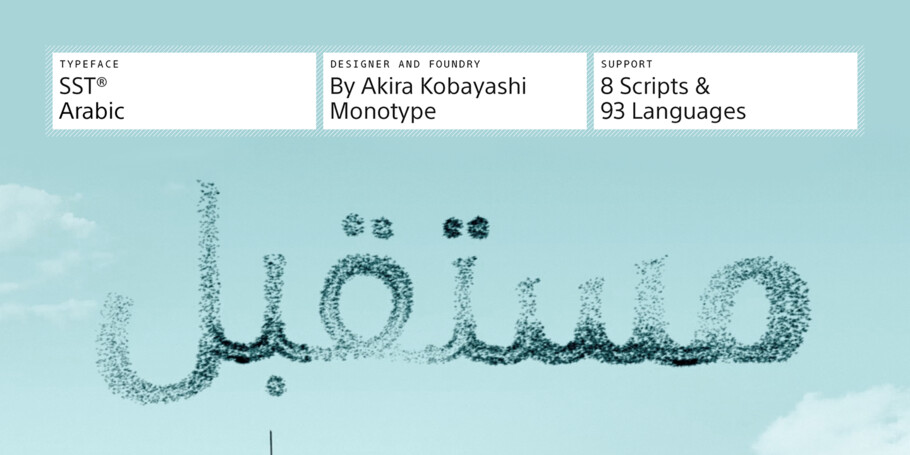
SST®
Universelle et intemporelle.
For international brands, SST brings harmony and personality to communications across cultures and touchpoints. The SST typeface was designed to be universal and timeless, with support for 93 languages and outstanding legibility at all sizes.
Monotype’s Akira Kobayashi and Sony Creative Center’s Hiroshige Fukuhara created a hybrid of two typographic styles, geometric and humanist. A sharp, solid, geometric edge is evident in uniform line widths – tempered here and there with just a few tiny optical adjustments – and balanced by softer, more organic qualities of humanist design to improve readability at all sizes.
A team of ten other type designers around the world helped to make sure the style demands and cultural nuances of specific languages were catered for, and ensure a consistent tone across the entire family of fonts. Today, any brand or designer can access SST’s blend of legibility, versatility and timelessness. ‘Carelessly embellish a typeface with trendy styling, and in two or three years it will look outdated,’ says Akira. ‘We avoided this when designing the SST fonts, which I hope will be used for decades.’
With a background in art and calligraphy, Akira has designed several award-winning typefaces, typically Latin fonts, though he studied and began his type design career in his native Japan. He worked in Japan at Sha-ken, Jiyu-kobo, TypeBank and taught at Nihon Designer Gakuin before becoming Monotype’s Type Director in Germany. In addition to designing retail fonts, Akira has led important custom font projects for Sony and UBS.
La police SST s’attaque à un défi central de l’image de marque - l’universalité. La superfamille SST prend en charge plus de 90 langues, notamment le japonais, le thaï et l’arabe.
Le directeur typographe Akira Kobayashi a étroitement collaboré avec le directeur artistique en chef de Sony, Hiroshige Fukuhara, pour créer une police originale couvrant une centaine de langues environ.